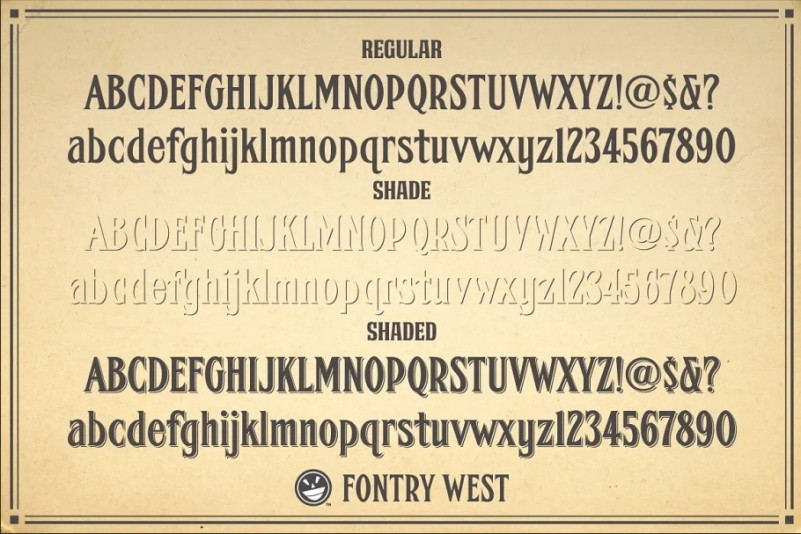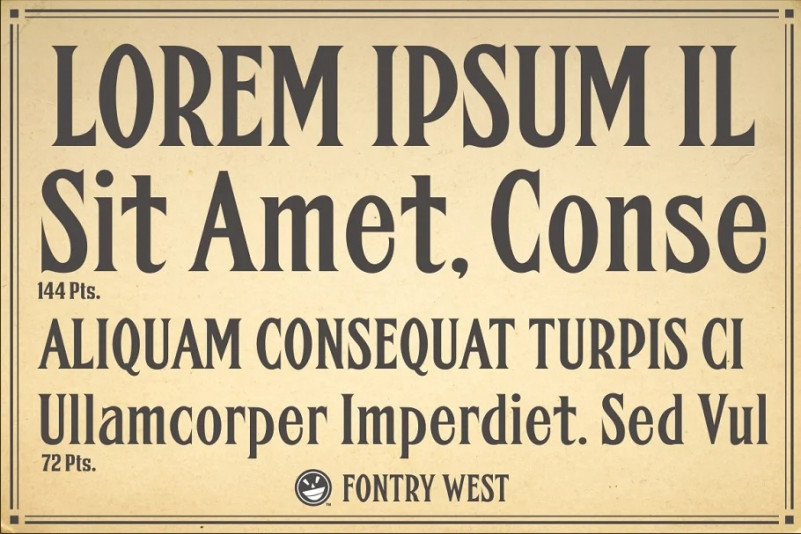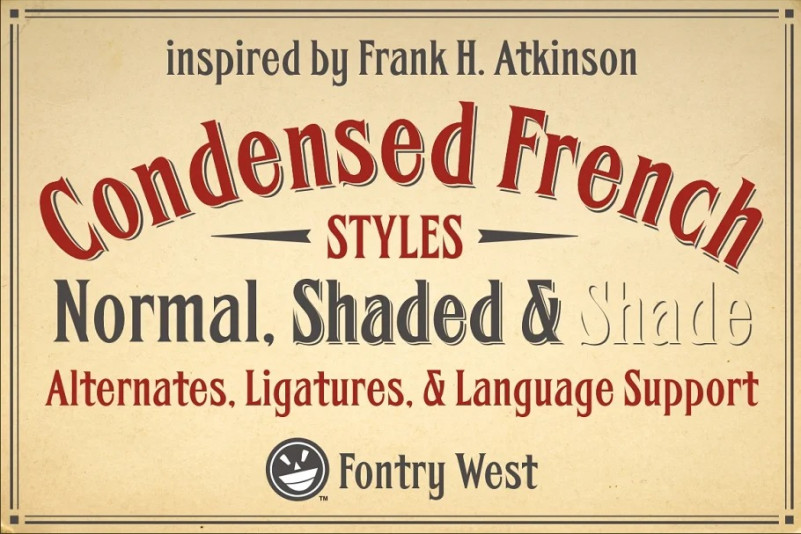
FHA Condensed French Font
One could speculate that FHA Condensed French probably started life as wood type for displays, headlines and posters. The exaggerated sharp serifs and condensed forms were not uncommon for that period. At some point, sign painters picked up Condensed French added their own character. At the end of the nineteenth century, Frank H. Atkinson included Condensed French in his samples of lettering for his book, ”Sign Painting, A Complete Manual.” This book became one of the definitive guides for signwriting and hand lettering. In 1999, Mike Adkins digitized Condensed to add to our Atkinson collection.